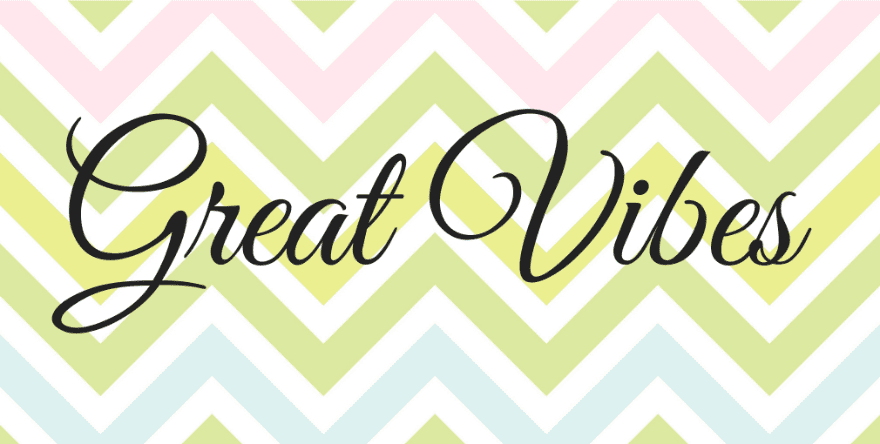
15 Free Calligraphy Fonts for Every Occasion
Are you looking for a unique font to add to your designs? A calligraphy font might be just what you need. With plenty of free calligraphy fonts available online, you can easily add a little extra something to your projects. Calligraphy lettering comes in many different styles, from neat and tidy to super decorative. In this post, we’ve put together a collection of free calligraphy fonts which you can download today.
1. Great Vibes
Great Vibes is one of the all-time favorites when it comes to calligraphy fonts.  It’s easy to read with large capital letters and an even baseline. The letters are cleanly connected and the ascenders and descenders are looped. This font is perfect for larger titles and subtitles and looks great paired with a simple sans font like Roboto and Open Sans. Great Vibes is free for both personal and commercial use and has a Google Webfonts version as well.
2. Arizonia
Arizonia is a contemporary calligraphy font with a subtle Arabian twist. It was inspired by the letters created by a sign painter’s camel-hair brush. The upstrokes are thin while the downstrokes are heavy, creating a nice balance. The slight angle to the right gives the font personality. This font is perfect for larger titles and quotes. Pair it with Josefin Sans or Merriweather for fun and airy designs. This font comes with free personal and commercial licenses and is in the Google Webfonts directory.
3. Mrs Sheppards
Thw Mrs Sheppards calligraphy font is part of the Charles Bleumlein Script collection. This is a collection of fonts digitally recreated from original hand created script fonts between the 1930s and 1950s. These fonts were created using real peoples’ signatures and were titled with fictitious names to keep that signature spirit alive. This font has fun thick strokes, making it a bit more contemporary than other fonts in the collection. Use Mrs Sheppards font for blurb titles or menu headers and pair it with Lato or Montserrat for a clean design. This font comes with a free personal and commercial license and also a Google a Webfonts version.
4. Ruthie
Ruthie is a calligraphy font with a personal touch. The letters are not connected but instead have a personality all their own. The capital letters have a decorative style with short swirls at the ends. The dot on the letter i looks like a slanted drop or a candle flame. This is a unique calligraphy font with a lot of potential. Ruthie has free licensing for both free and commercial use and a Google Webfonts version.
5. Endestry
Endestry is a modern calligraphy font with a fresh look. It’s similar to the favorite fonts on Instagram and feminine websites. This font has gorgeous loops and unique letter connectors. Pair it with an all caps simple font like Montserrat or Raleway and it will look great on any creative project. Endestry is free for both personal and commercial use and includes a .woff (Webfont) file in the download folder.
6. Salmela
Salmela is a pretty and fun calligraphy font with an uneven baseline. This is the kind of font that looks great on its own and in big letters. It’s great for large headers and even logos. Salmela is on the verge of being a feminine font but can also be used for more gender-equal designs due to its thick strokes. This font is free for both personal and commercial use but doesn’t have a Webfont file. To use this font in WordPress, you will need to convert it to .woff or use the Use Any Font plugin.
7. The Queen
The Queen is a thing and delicate modern calligraphy font perfect for many project styles. Free calligraphy fonts like this one are especially versatile because they work for both titles and block texts like quotes or testimonials. This font can give a personalized look to an otherwise minimalist or standard design. The Queen is free for both personal and commercial use and is downloaded with a Webfont. This font is ready for your web design projects.